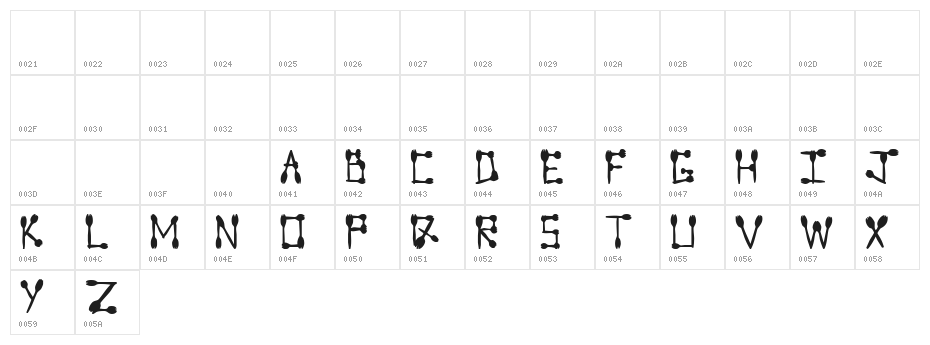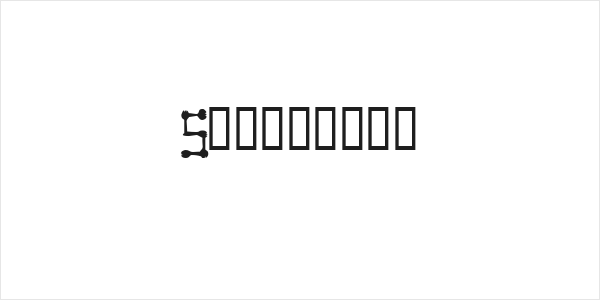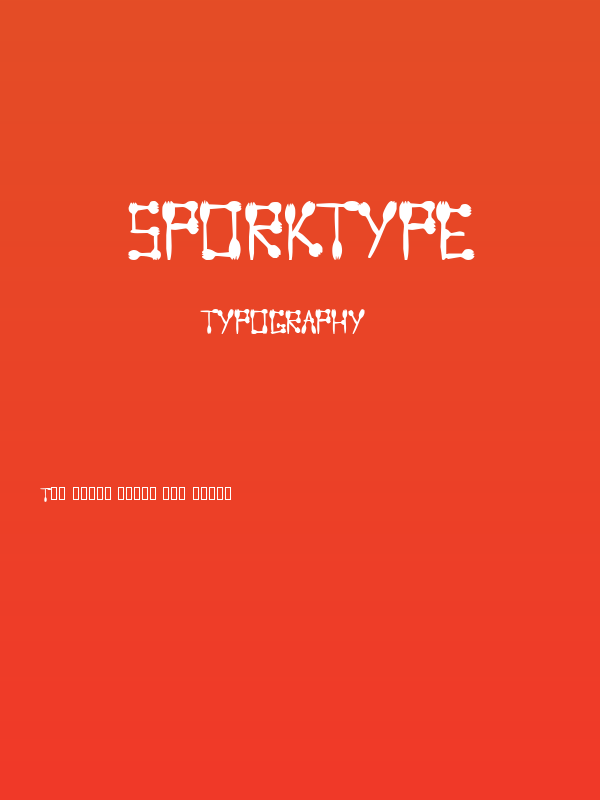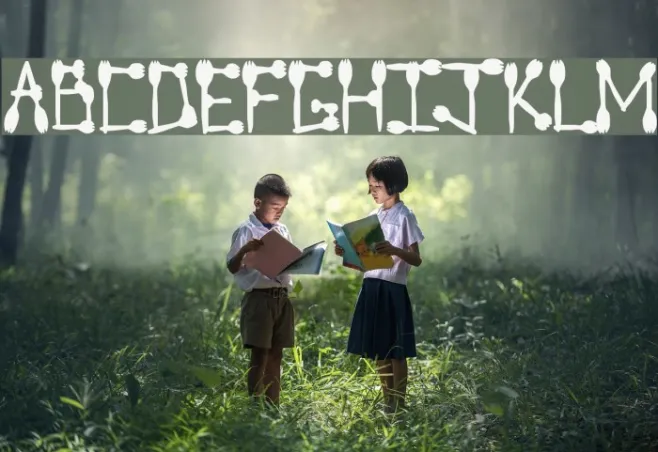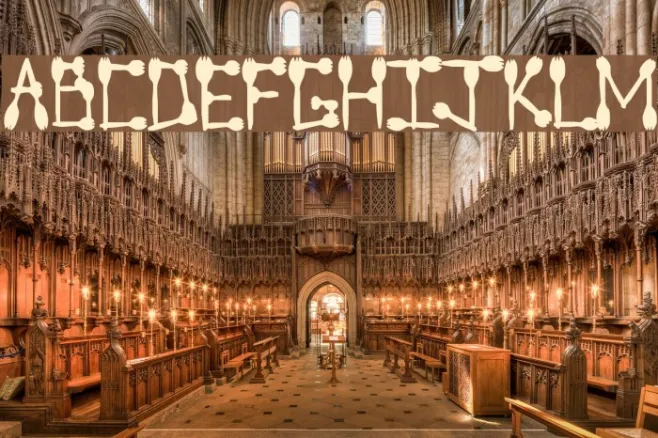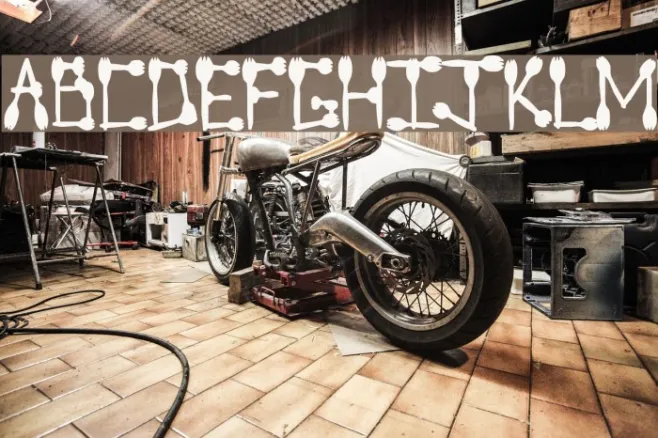
Sporktype Font
Sporktype Description
This font features a playful and unique design where each letter is crafted to resemble a spork, combining elements of both a spoon and a fork. The strokes are bold and consistent, creating a cohesive look across all characters. The design is highly decorative, making it ideal for projects that require a fun and quirky aesthetic. The font maintains a uniform width and character spacing, ensuring readability despite its unconventional style. The high contrast in stroke thickness adds to its distinct appearance, making it stand out in any design.
| Proposed Projects | Ideal for children's books, playful branding, food-related designs, or any project seeking a whimsical touch. |